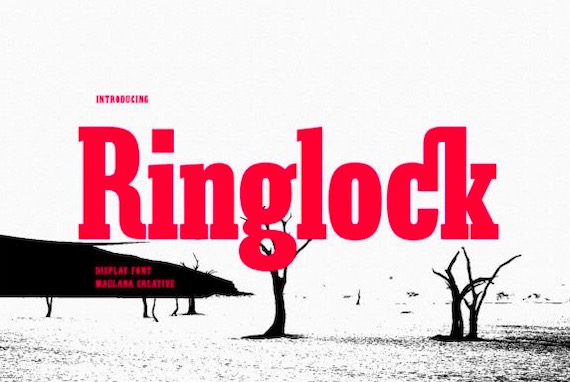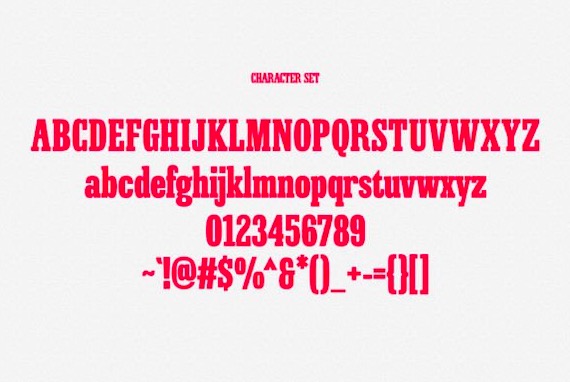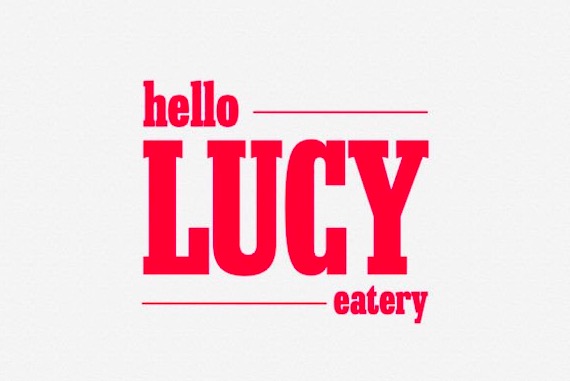
Ringlock is a structured and neat slab serif font that was created and shared by Maulana Creative. It will add a touch of elegance and sophistication to any design. With its sturdy and confident letterforms, it is perfect for conveying a sense of strength and reliability in branding and editorial projects. The subtle details and minimalistic design make it a versatile font for a wide range of applications.
Ringlock Slab Serif Font